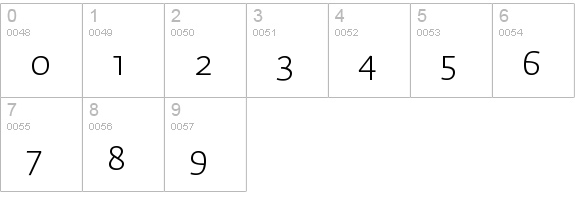
Auto 3 Light is a refined, elegant variant in the Auto typeface family \xE2\x80\x94 well suited to elegant body text, refined sub-headings, and luxury branding.
Auto 3 Light is a sleek and modern font that exudes elegance and sophistication. Its clean lines and minimalist design make it perfect for a wide range of projects, from branding to web design. The light weight of the font gives it a delicate and airy feel, making it ideal for adding a touch of refinement to any design. What's even better is that Auto 3 Light is available for free download at FontsMarket.com! This means that you can easily access this beautiful font and use it in your projects without any cost. Don't miss out on this opportunity to enhance your designs with the stunning Auto 3 Light font - download it today and elevate your creations to the next level.